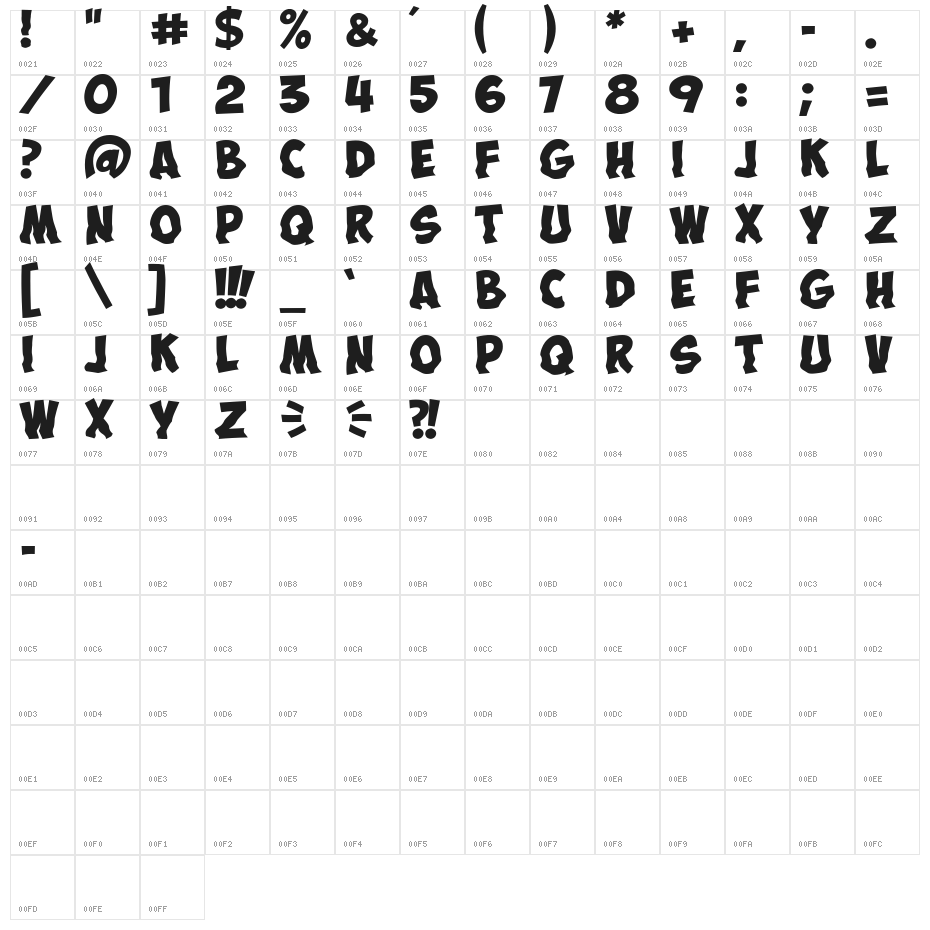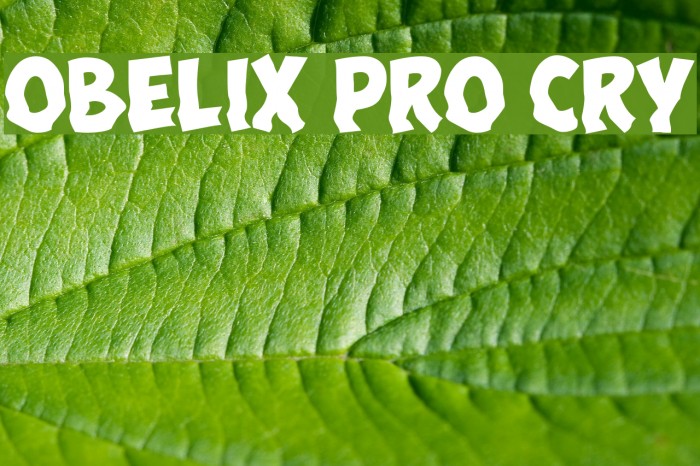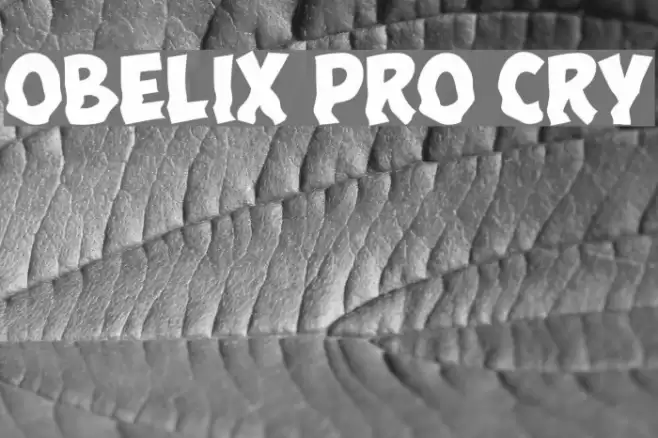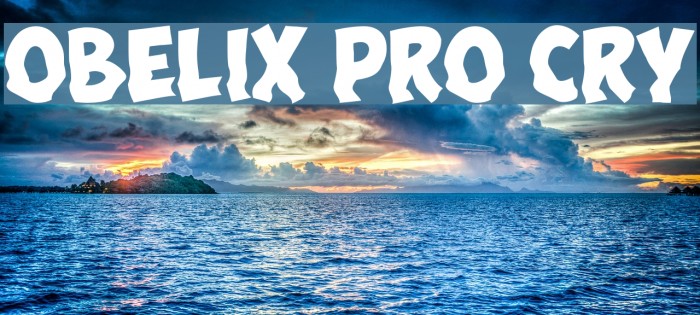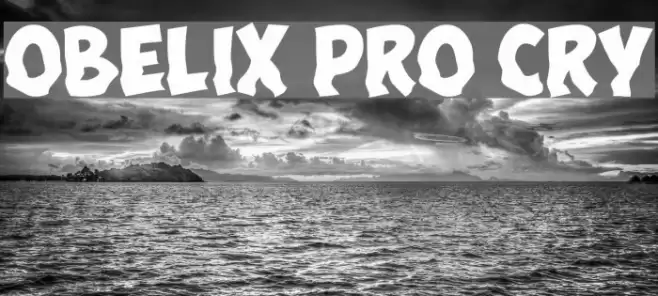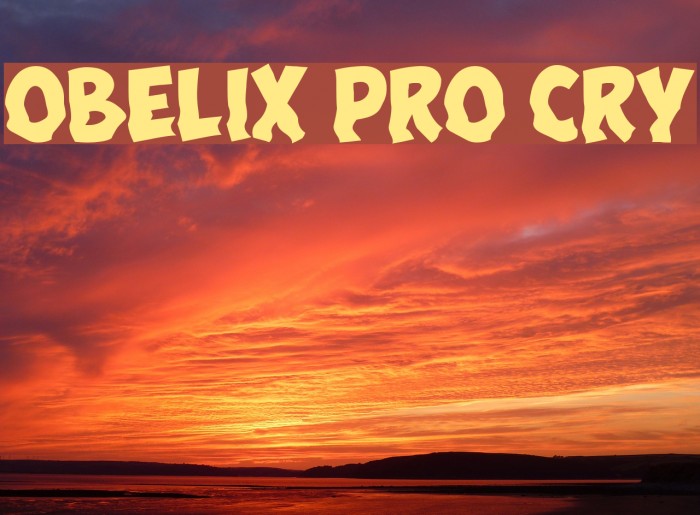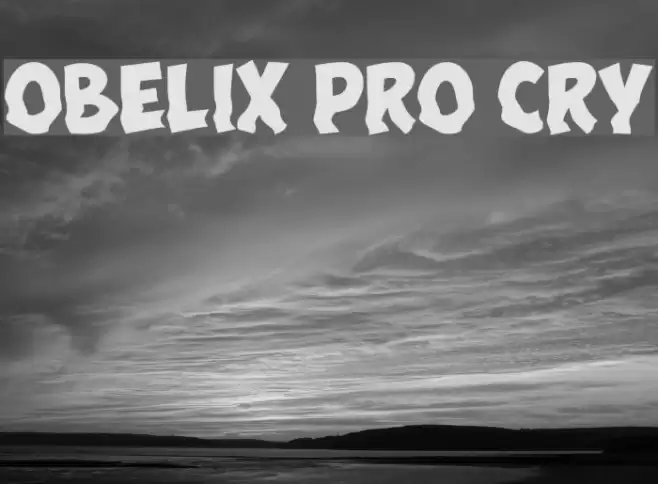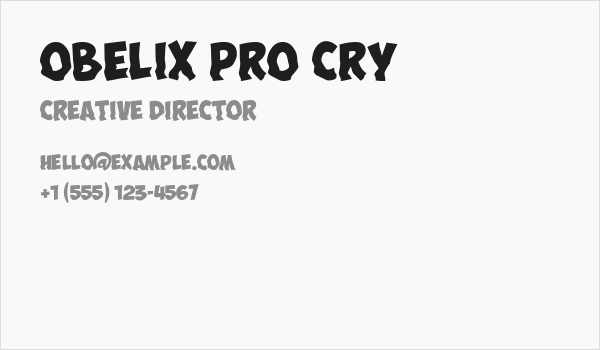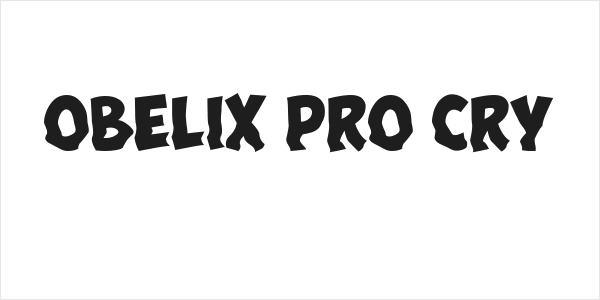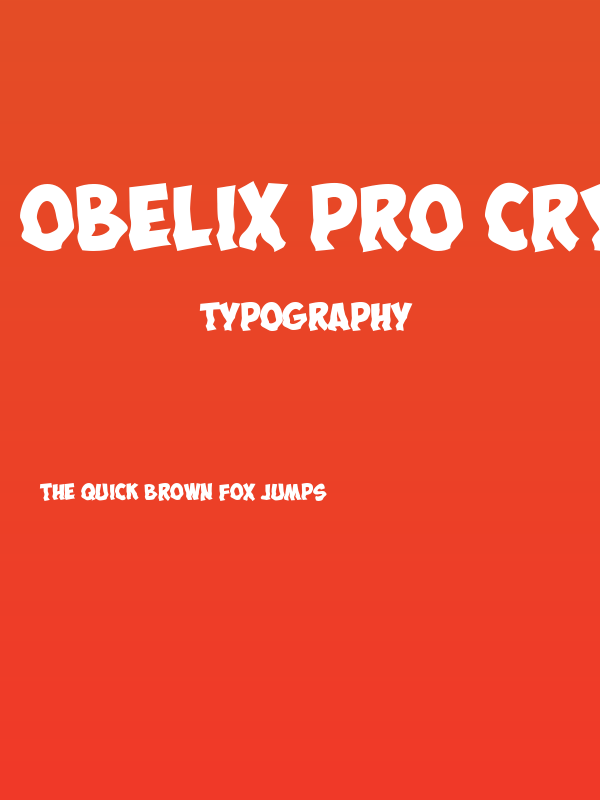
Obelix Pro Cry Font
Obelix Pro Cry Description
This font features a bold and playful design with exaggerated, thick strokes and a slightly irregular shape, giving it a cartoonish and dynamic appearance. The characters are heavily stylized, with a strong presence and a sense of movement, making it ideal for eye-catching designs. The uppercase and lowercase letters maintain a consistent style, with the uppercase being particularly dominant. The numbers and special characters follow the same bold and lively aesthetic, ensuring a cohesive look across all text elements.
Overall StylePlayful, Cartoonish, Dynamic
Use CaseHeadlines, Posters, Branding
Proposed ProjectsIdeal for comic books, children's books, playful branding, posters, and any design requiring a fun and energetic typeface.